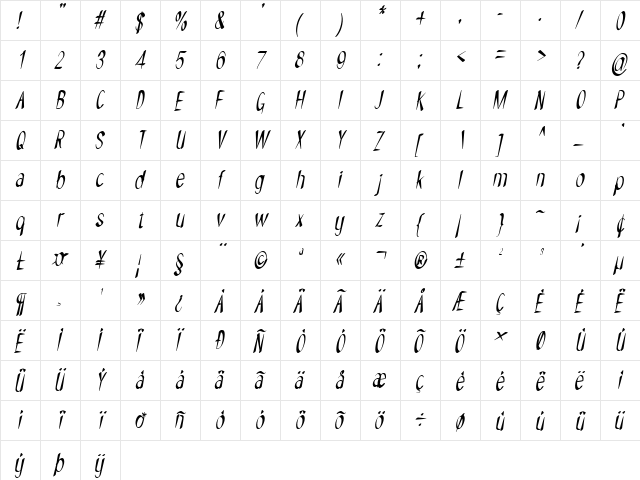
NYOEHOKA Italic
Design Context for NYOEHOKA Typeface
NYOEHOKA is a composed and adaptable typeface that performs quietly and consistently across a wide range of design contexts. The dynamic lean of this cut emphasises speed and emphasis in any layout.
Pro Tip: Use NYOEHOKA for emphasis, pull quotes, and subheadings where its slanted energy can add rhythm to the layout.